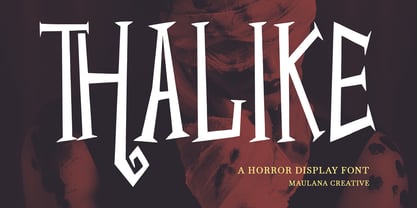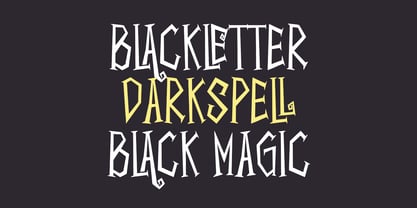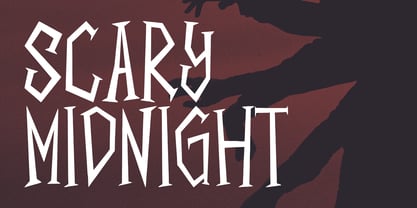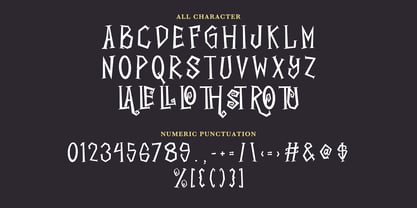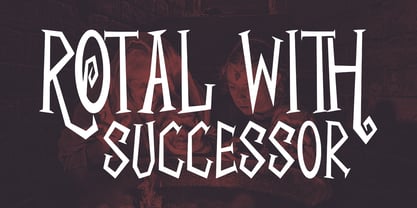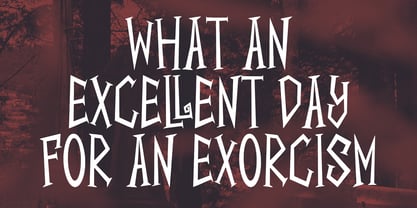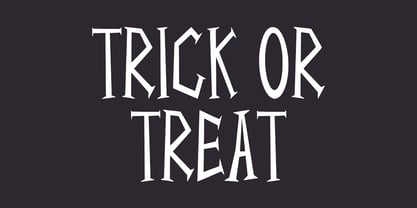
MC Thalike
by Maulana Creative
The MC Thalike Font Family was designed by Gilang Maulana and published by Maulana Creative. MC Thalike contains 1 styles. More about this family
Thalike is a horror display font. With bold stroke, fun character with a bit of ligatures. To give you an extra creative work. Thalike font support multilingual more than 100+ language. This font is good for logo design, Social media, Movie Titles, Books Titles, a short text even a long text letter and good for your secondary text font with sans or serif. Make a stunning work with Thalike font.
Designers: Gilang Maulana
Foundry: Maulana Creative